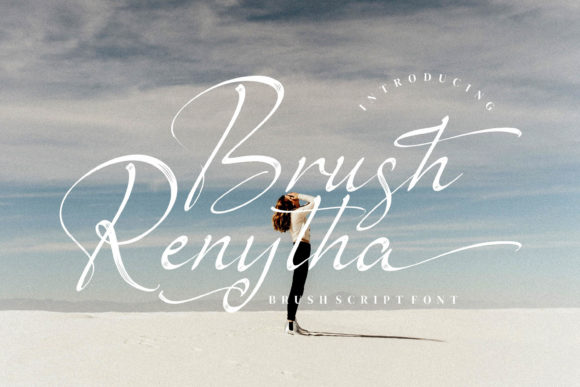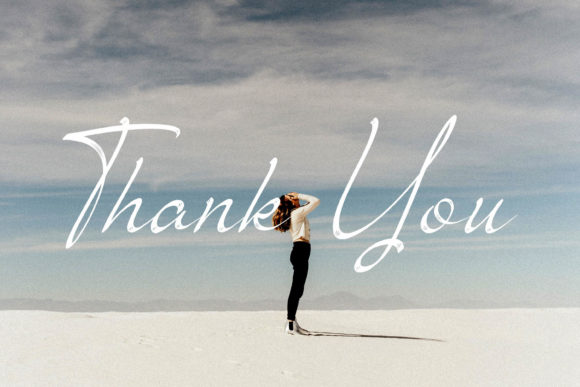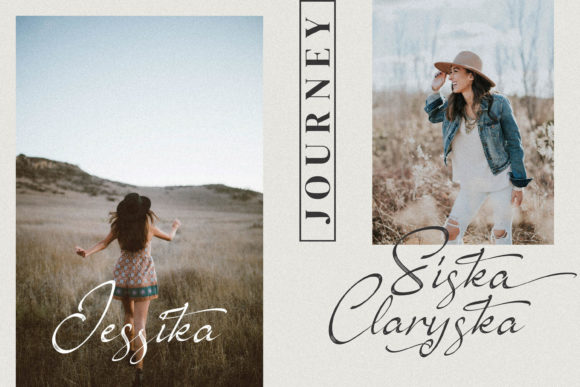
About Brush Renytha Font
Brush Renytha is an exquisite handwritten font, masterfully designed to become a true favorite. It maintains its classy calligraphic influences while feeling contemporary and fresh. This font is PUA encoded which means you can access all of the glyphs and swashes with ease!